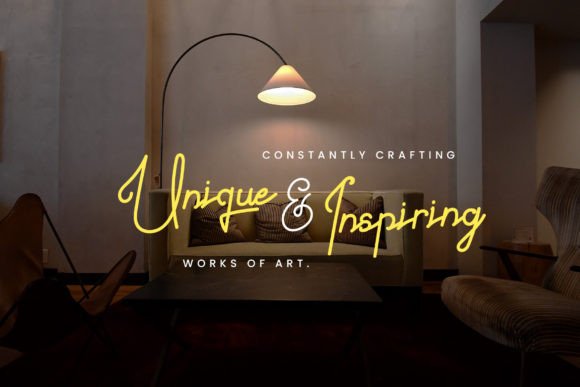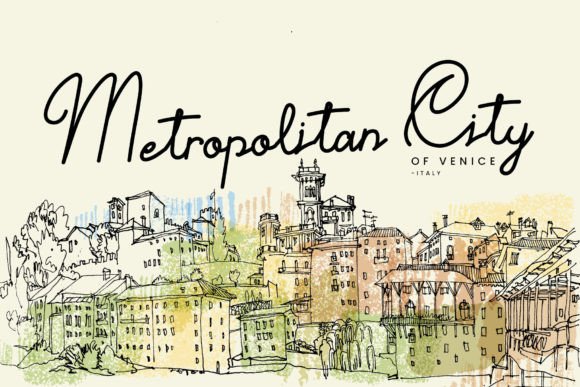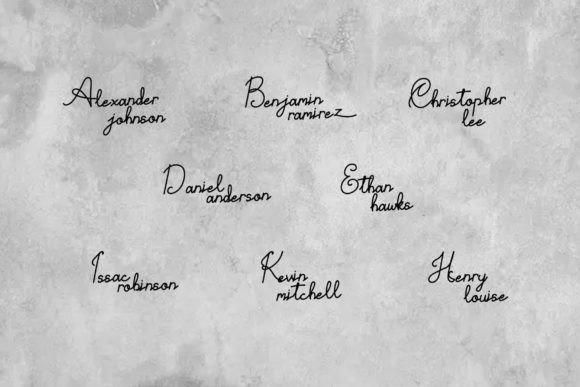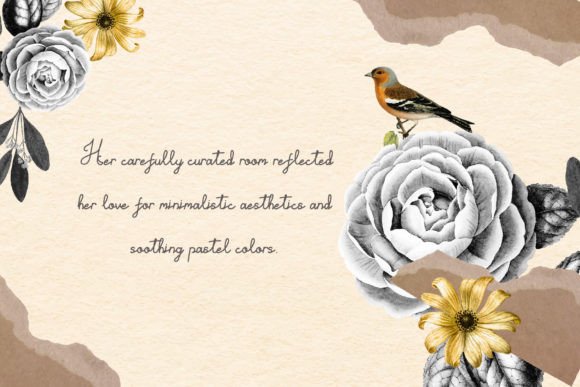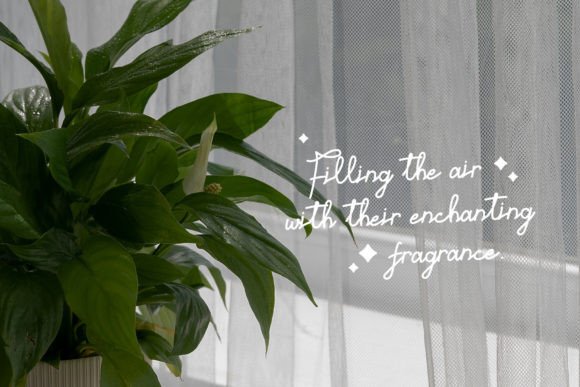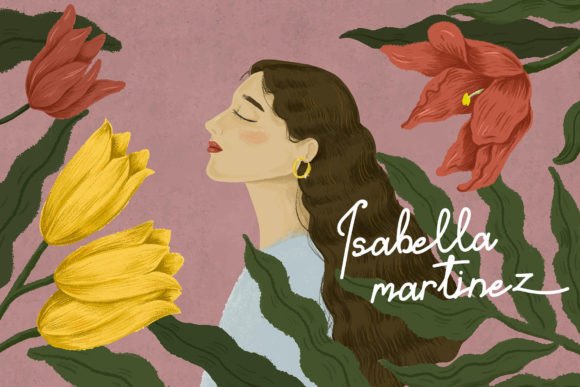
Introduction to Elone Veloz Font
Elone Veloz is a captivating and organic monoline font that evokes a sense of natural beauty and effortless grace.
Inspired by the gentle curves of a snail’s trail, this script font carries a harmonious flow and a touch of whimsy Each letter exudes a handmade charm, as if written with a single fluid stroke.